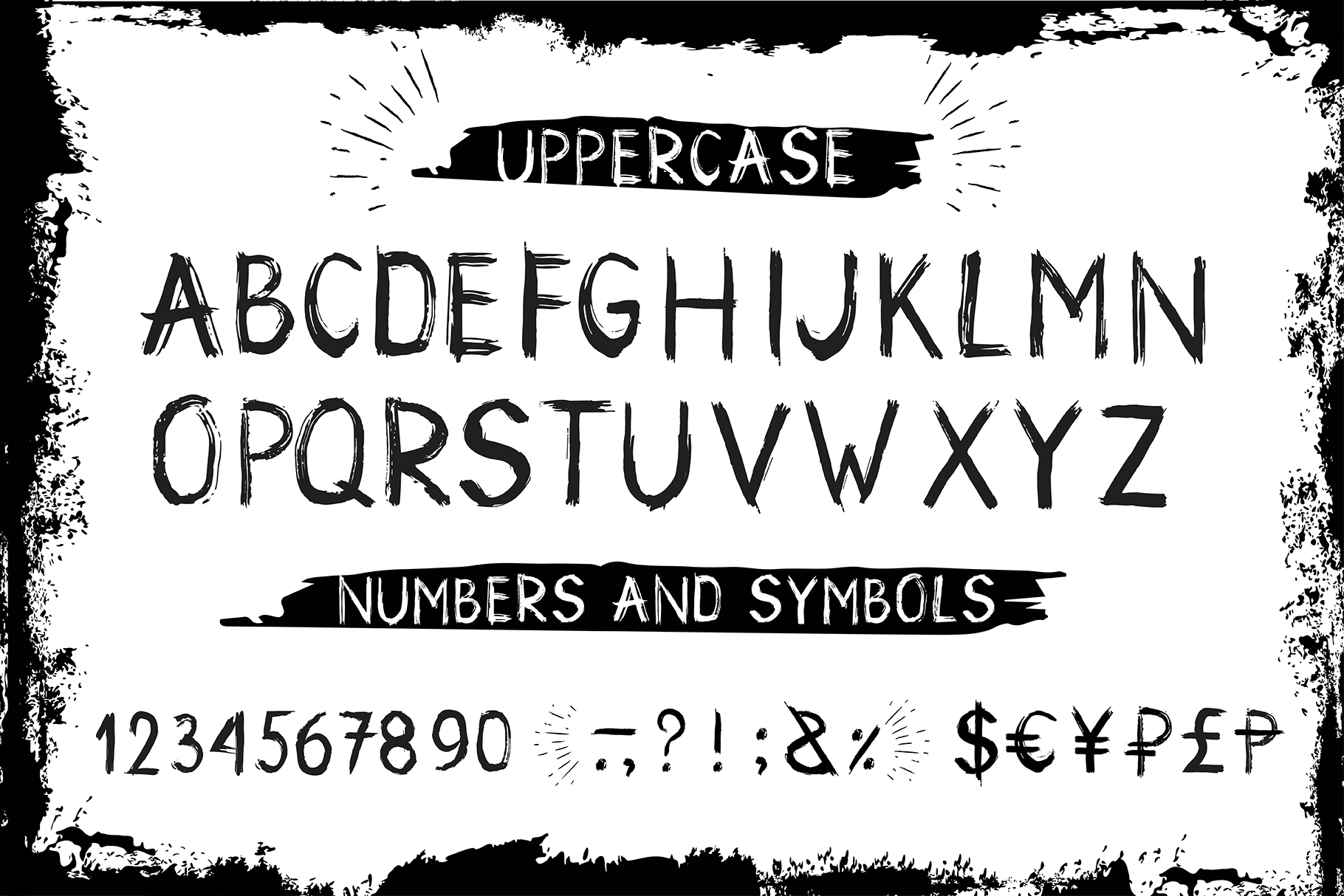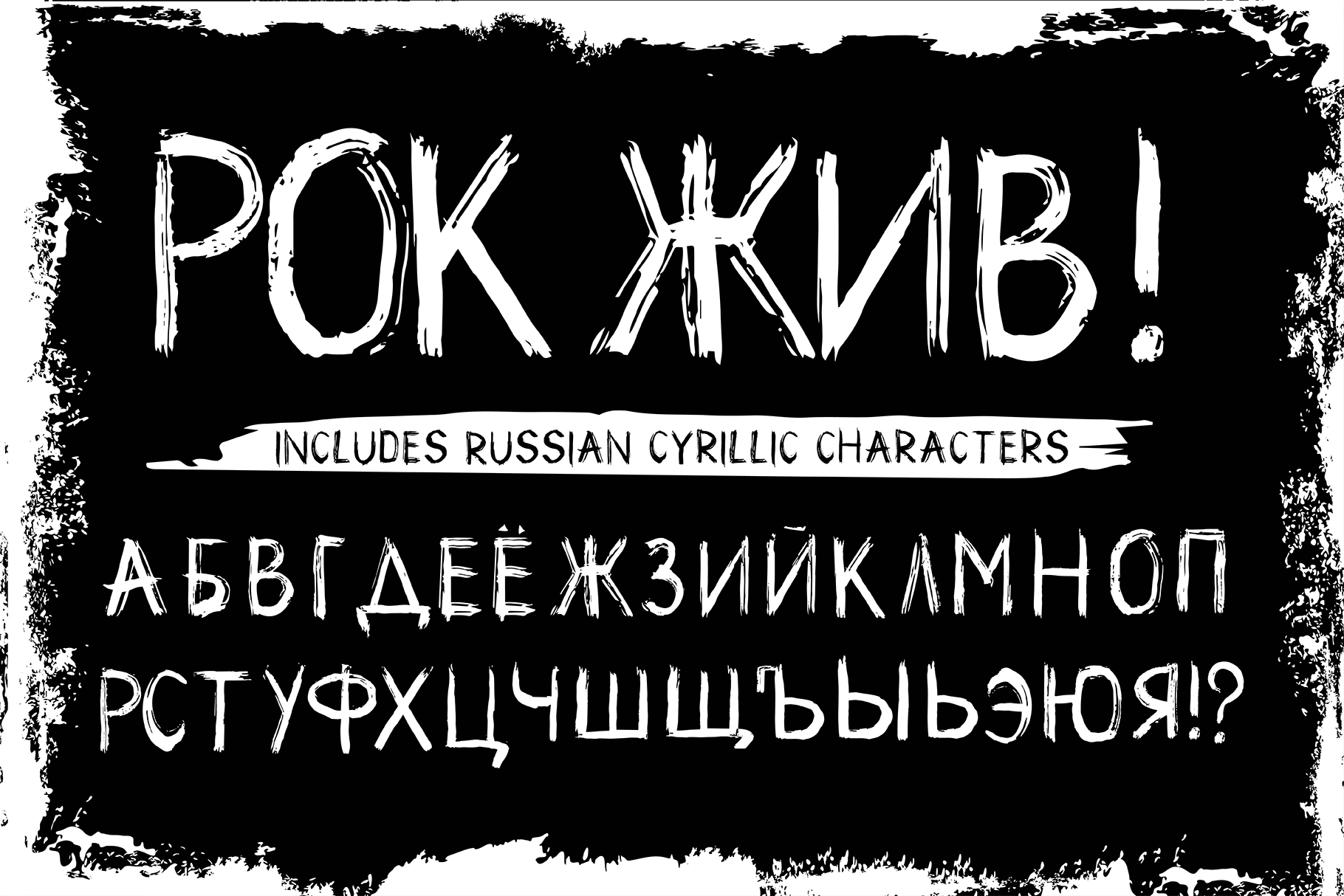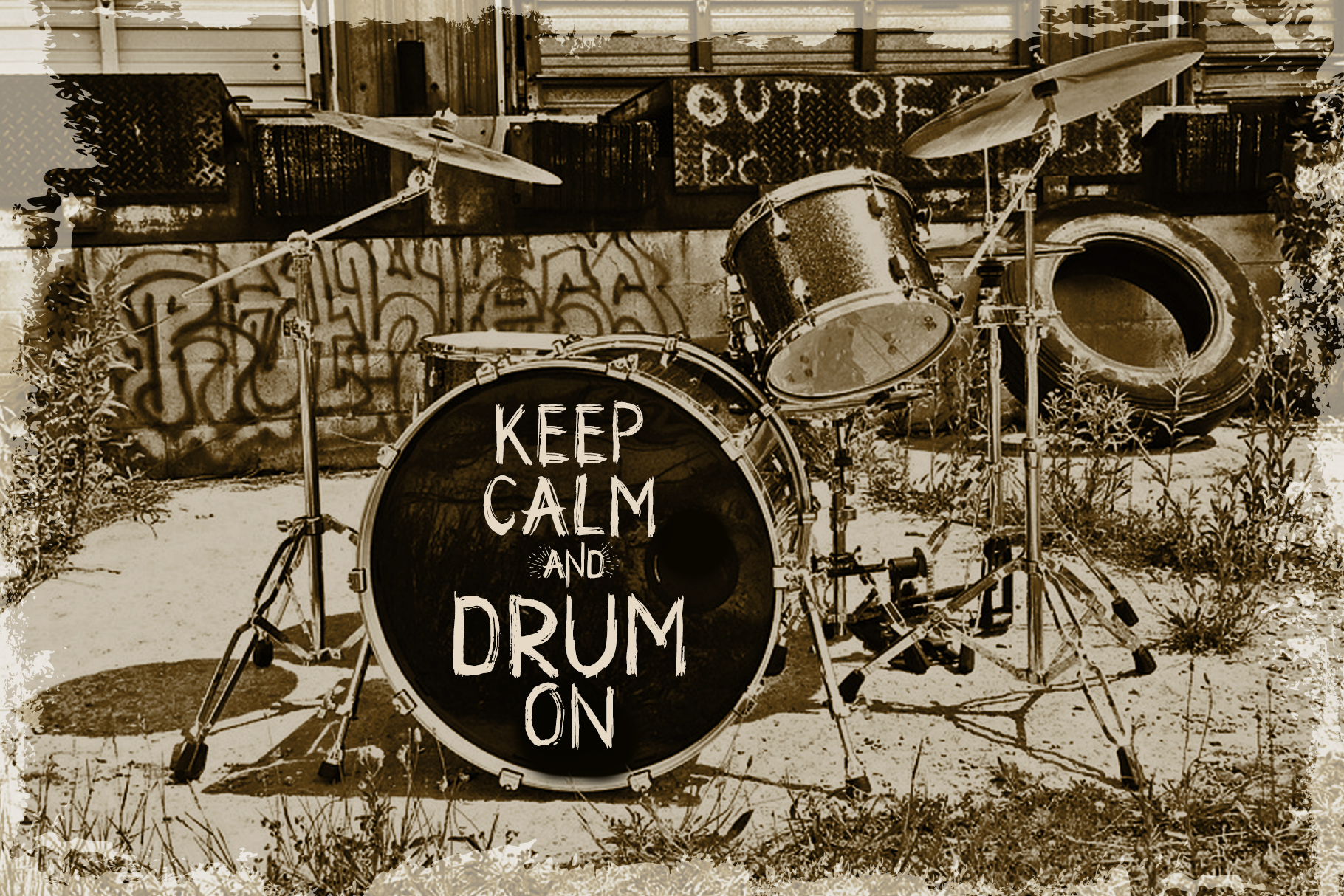
Drum Font: The Ultimate Grunge-Style Display Font for Headlines and Branding
Are you a designer or crafter looking for a unique and eye-catching font to elevate your projects? Look no further than Drum Font, a grunge-styled display font that’s perfect for headlines and display purposes. With its all-caps set of characters, Drum Font is most useful in large formats and is ideal for giving your projects a branded look.
What is Drum Font?
Drum Font is a stylish and bold display font that’s inspired by the grunge movement of the 1990s. Its distressed and rough texture gives it a unique and edgy look that’s sure to grab attention. The font features an all-caps set of characters, making it perfect for headlines, titles, and display purposes.
Key Features of Drum Font
- Grunge-style design: Drum Font features a distressed and rough texture that gives it a unique and edgy look.
- All-caps set of characters: The font features an all-caps set of characters, making it perfect for headlines and display purposes.
- Perfect for large formats: Drum Font is most useful in large formats, making it ideal for billboards, posters, and other large-scale projects.
- Branded look: The font’s bold and stylish design makes it perfect for giving your projects a branded look.
Uses of Drum Font
Drum Font is a versatile font that can be used in a variety of projects, including:
- Headlines and titles: The font’s bold and stylish design makes it perfect for headlines and titles.
- Posters and flyers: Drum Font is ideal for creating eye-catching posters and flyers.
- Logos and branding: The font’s unique and edgy design makes it perfect for creating logos and branding materials.
- Billboards and large-scale projects: Drum Font is most useful in large formats, making it ideal for billboards and other large-scale projects.
Benefits of Using Drum Font
Using Drum Font in your projects offers a range of benefits, including:
- Unique and eye-catching design: The font’s distressed and rough texture gives it a unique and edgy look that’s sure to grab attention.
- Increased brand recognition: The font’s bold and stylish design makes it perfect for giving your projects a branded look.
- Improved readability: The font’s clear and bold design makes it easy to read, even in large formats.
How to Use Drum Font
Using Drum Font in your projects is easy. Here are a few tips to get you started:
- Use it in large formats: Drum Font is most useful in large formats, so try using it in billboards, posters, and other large-scale projects.
- Experiment with different colors: The font’s distressed and rough texture looks great in a range of colors, so try experimenting with different colors to find the one that works best for your project.
- Pair it with other fonts: Drum Font can be paired with other fonts to create a unique and eye-catching design.
Drum Font is a unique and eye-catching grunge-style display font that’s perfect for headlines and display purposes. With its all-caps set of characters and distressed and rough texture, it’s ideal for giving your projects a branded look. Whether you’re a designer or crafter, Drum Font is a great choice for any project that needs a bold and stylish font.